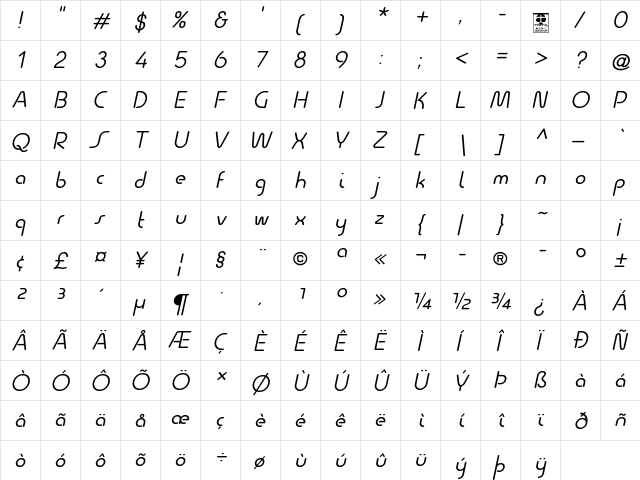
Quesat Demo Italic
| Foundry | StudioTypo |
| Designer | Mehmet Abac |
Design Context for Quesat Demo Typeface
Quesat Demo takes a measured approach to typography — its balanced proportions and neutral character make it a reliable workhorse for both digital and print work. The slanted form adds forward momentum and visual energy.
Pro Tip: Use Quesat Demo for emphasis, pull quotes, and subheadings where its slanted energy can add rhythm to the layout.